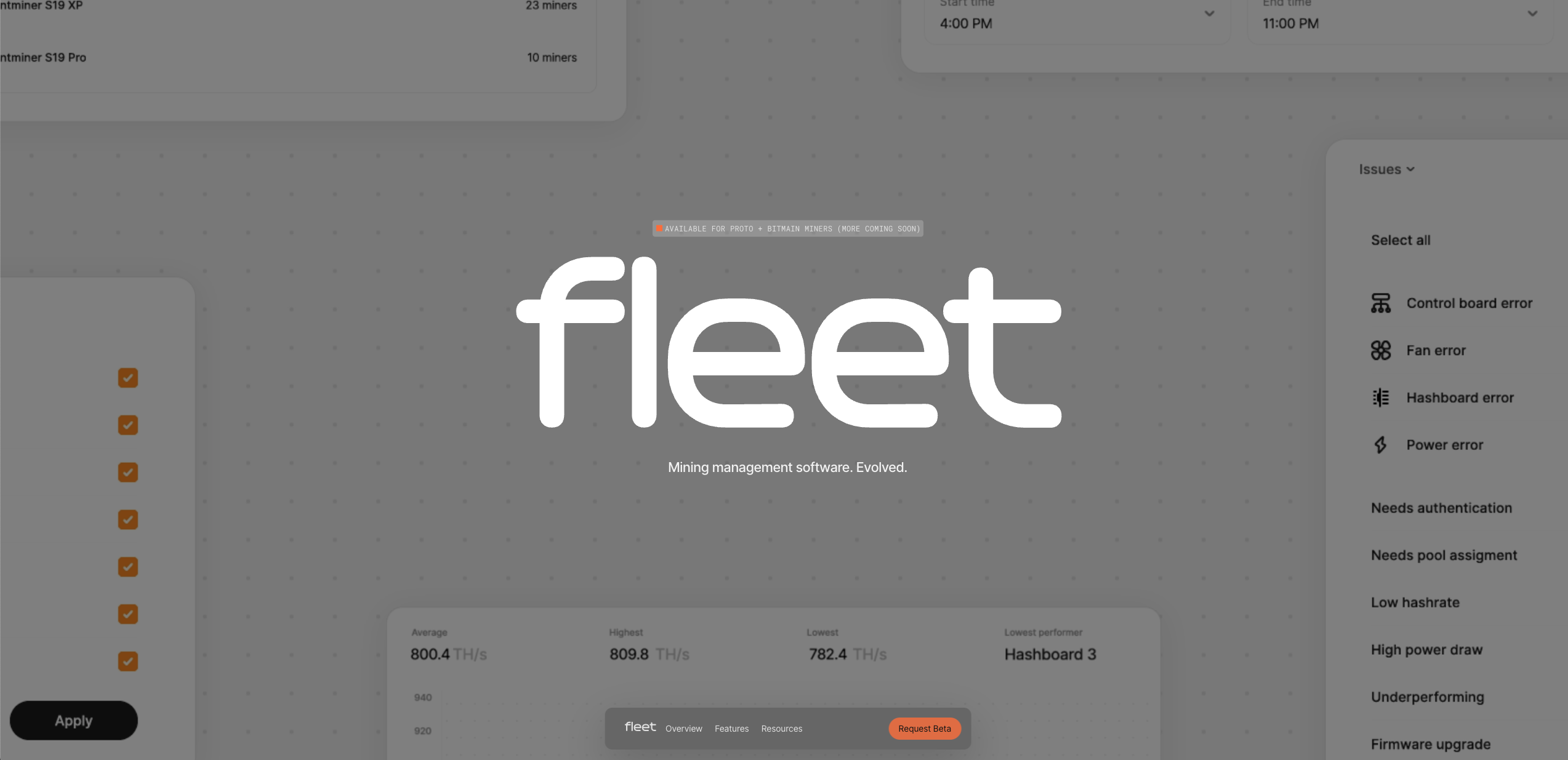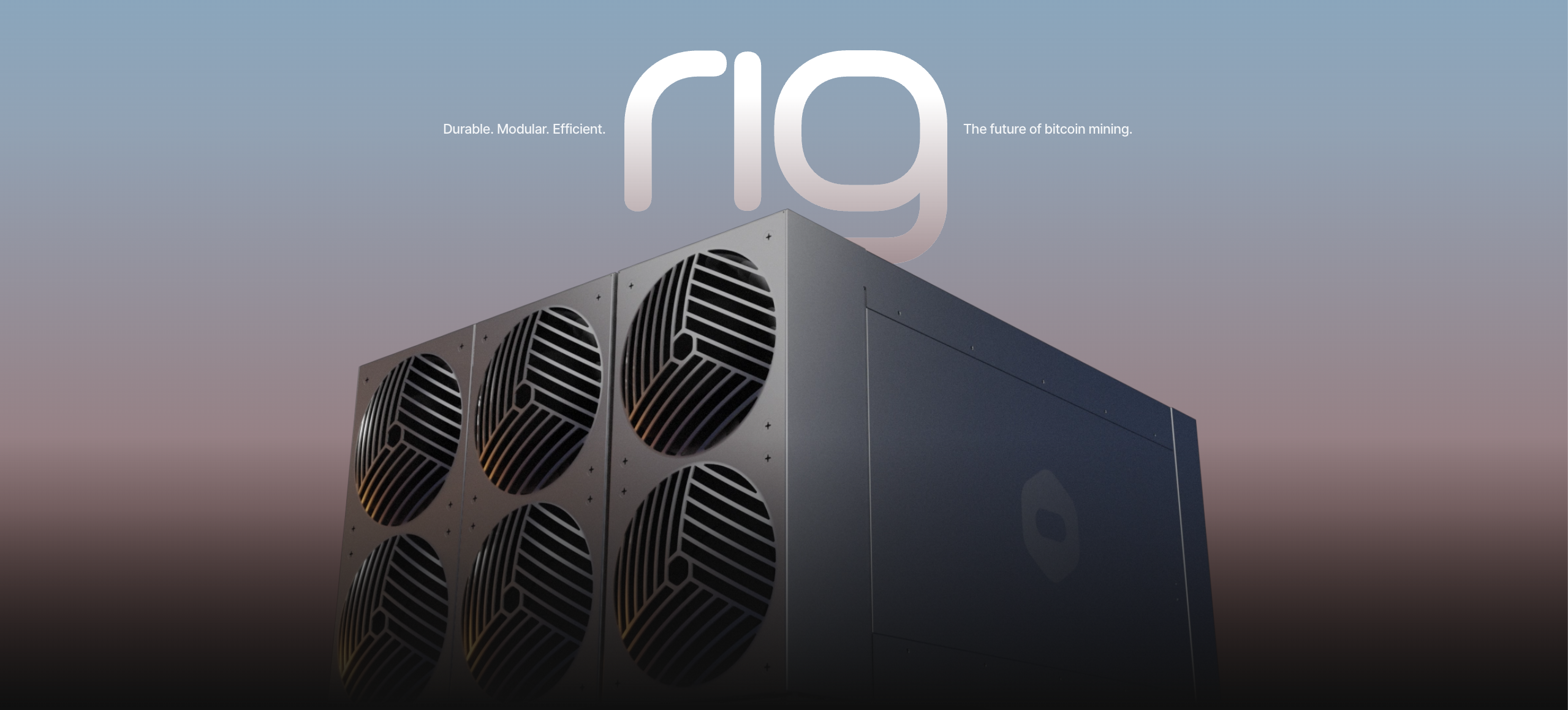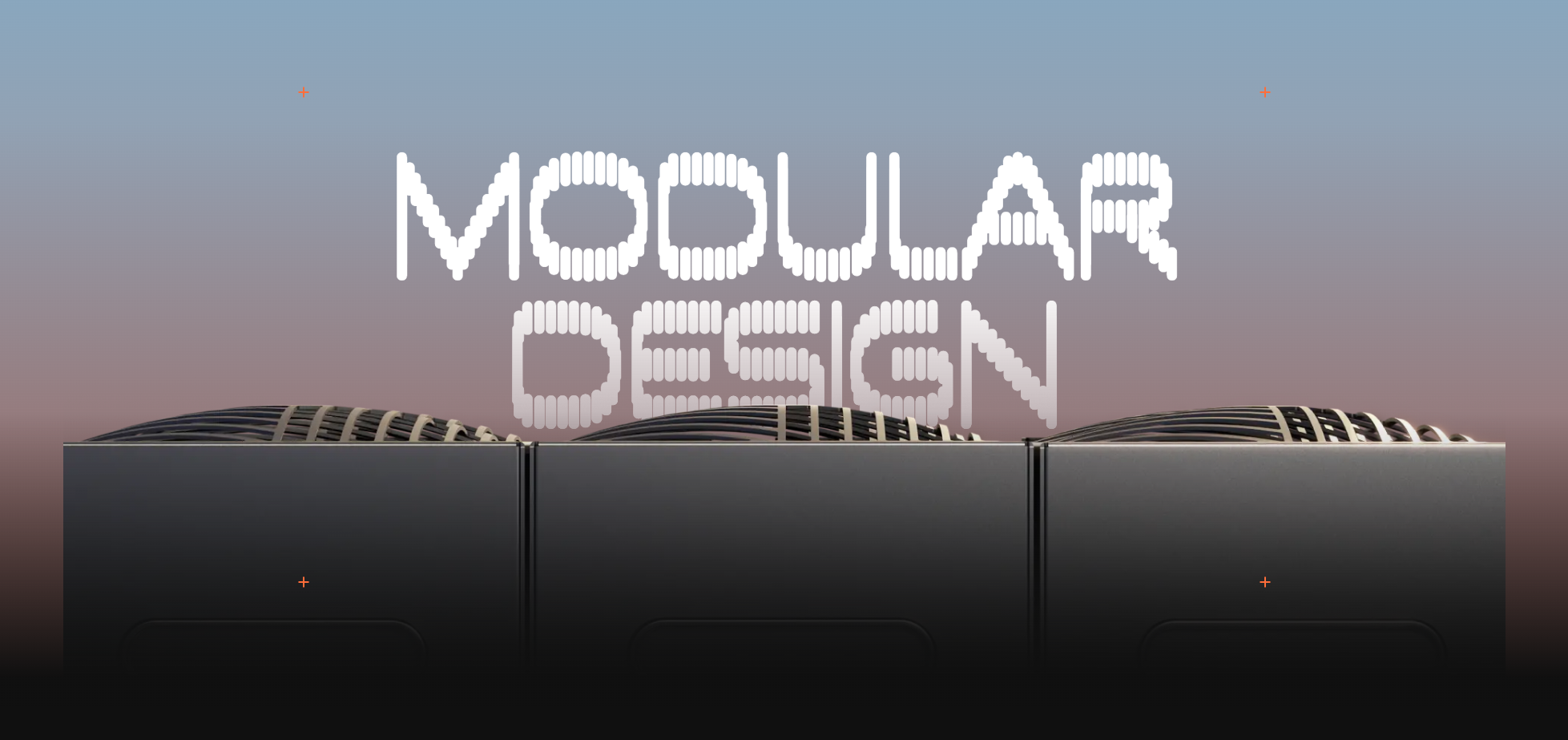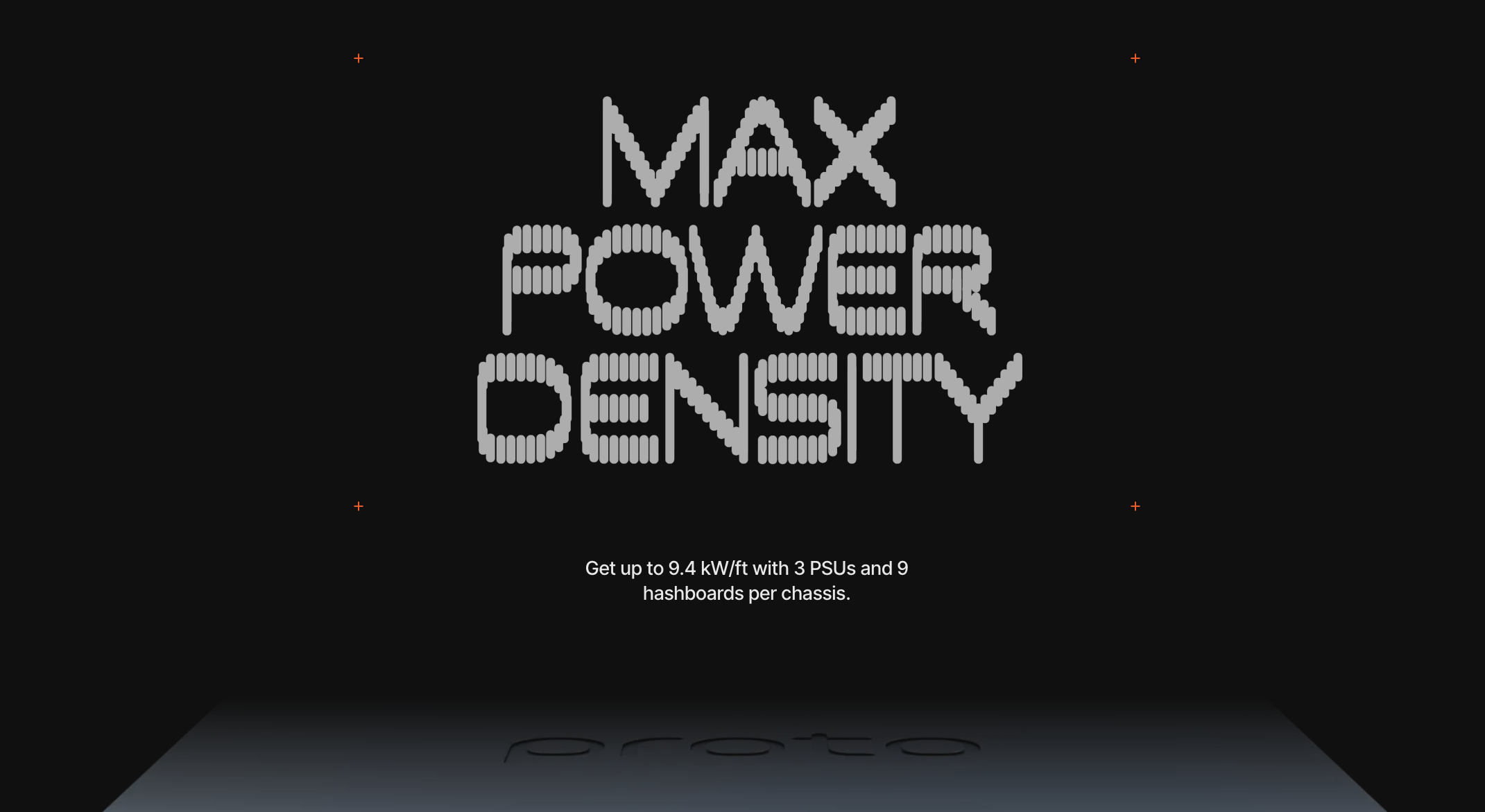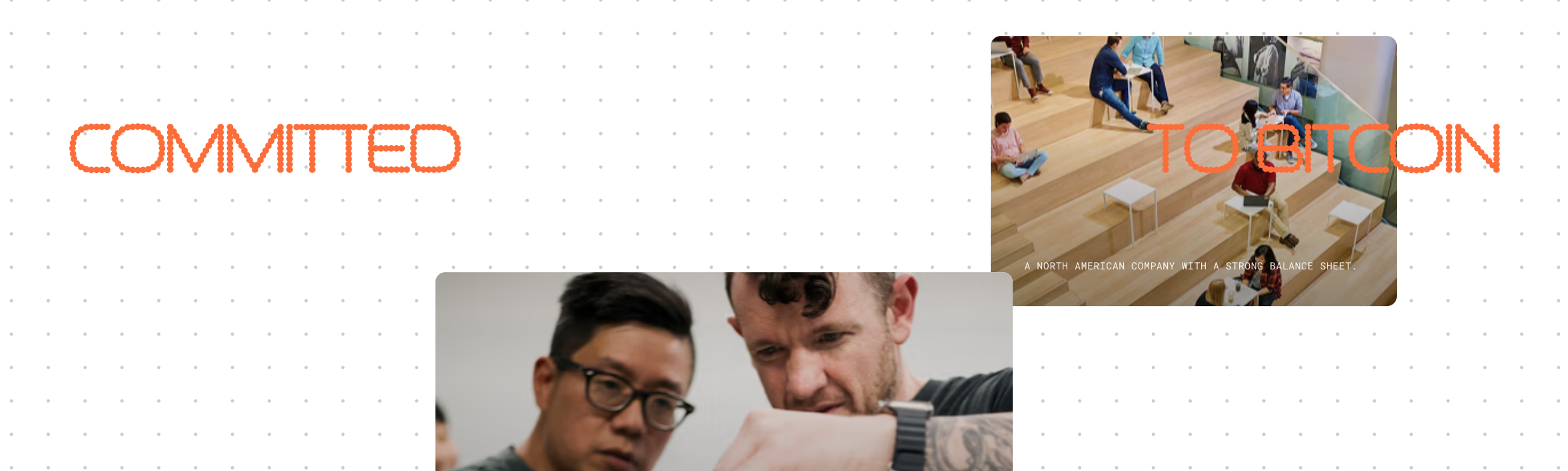
Proto
Proto (a subsidiary of Block) is a startup dedicated to decentralized bitcoin mining through two major products. On the hardware side is Rig, a rack-mounted super-computer ingeniously designed to be easily repaired and upgraded. On the software side is Fleet, mining management designed to work with Rig.
Steven Knodel at Block came to us with a pretty specific idea of what typeface was going to support this, but nonetheless we took every opportunity to leave no stone unturned in the discovery and sketching phase. We ended with a suite of two variable fonts that tackle display typography for the brand in every way from subtle and sophisticated to completely chaotic.
Proto character set
Proto Variable characterset
Proto Weight Spectrum
Proto Variable weights
Proto Dot Characterset
Proto Dot Variable characterset
Proto Dot Styles
Proto Dot Variable styles